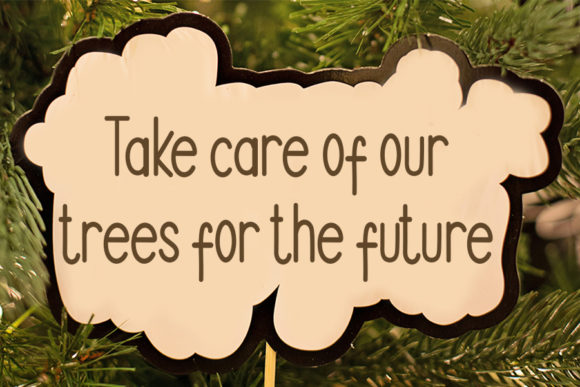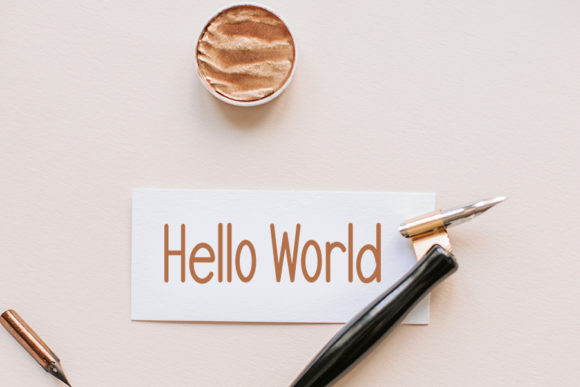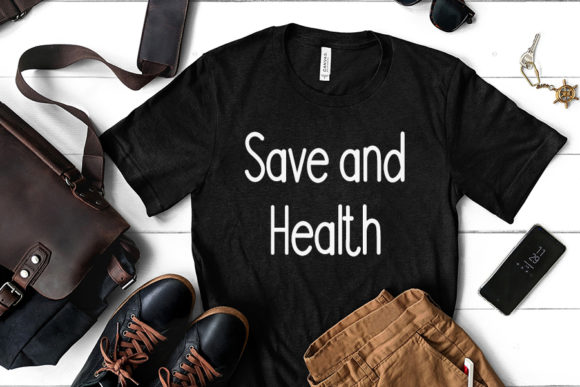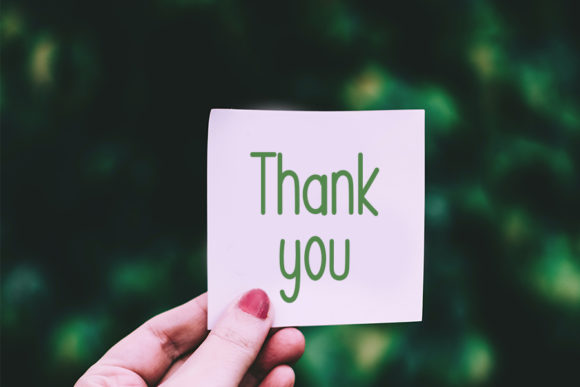
Christmas at Home Font: A Thin Lettered and Neat Sans Serif Font for Your Holiday Projects
As the holiday season approaches, designers and crafters are on the lookout for the perfect font to add a touch of festive flair to their projects. If you’re searching for a font that’s both elegant and versatile, look no further than Christmas at Home Font. This thin lettered and neat sans serif font is perfect for a wide range of applications, from logos and headings to t-shirts, letterhead, signage, labels, news, posters, badges, and more.
What is Christmas at Home Font?
Christmas at Home Font is a beautifully designed sans serif font that’s characterized by its thin letters and neat appearance. The font’s clean and minimalist design makes it perfect for adding a touch of sophistication to your holiday projects. Whether you’re creating a logo, heading, or any other type of design, Christmas at Home Font is sure to impress.
Features of Christmas at Home Font
So, what makes Christmas at Home Font so special? Here are just a few of its key features:
- Thin lettered and neat design: The font’s thin letters and neat appearance make it perfect for creating elegant and sophisticated designs.
- Sans serif: The font’s sans serif design makes it easy to read and perfect for use in a variety of applications.
- Versatile: Christmas at Home Font can be used for a wide range of projects, from logos and headings to t-shirts, letterhead, signage, labels, news, posters, badges, and more.
- Elegant and sophisticated: The font’s clean and minimalist design makes it perfect for adding a touch of elegance and sophistication to your holiday projects.
Uses of Christmas at Home Font
So, what can you use Christmas at Home Font for? The possibilities are endless! Here are just a few ideas to get you started:
- Logos: Use Christmas at Home Font to create a beautiful and elegant logo for your business or brand.
- Headings: Add a touch of sophistication to your headings and titles with Christmas at Home Font.
- T-shirts: Create custom t-shirts with Christmas at Home Font for a unique and stylish look.
- Letterhead: Use Christmas at Home Font to create custom letterhead for your business or personal correspondence.
- Signage: Create eye-catching signage with Christmas at Home Font for your business or event.
- Labels: Use Christmas at Home Font to create custom labels for your products or gifts.
- News: Add a touch of elegance to your news articles or blog posts with Christmas at Home Font.
- Posters: Create stunning posters with Christmas at Home Font for your business or event.
- Badges: Use Christmas at Home Font to create custom badges for your business or event.
Tips for Using Christmas at Home Font
Here are a few tips for using Christmas at Home Font:
- Experiment with different sizes and colors: Christmas at Home Font looks great in a variety of sizes and colors, so don’t be afraid to experiment and find the perfect combination for your project.
- Pair with other fonts: Christmas at Home Font pairs well with other fonts, so try pairing it with a bold font for a striking contrast.
- Use for holiday projects: Christmas at Home Font is perfect for holiday projects, but it can also be used for other applications, such as logos, headings, and more.
Christmas at Home Font is a beautiful and versatile font that’s perfect for adding a touch of elegance and sophistication to your holiday projects. With its thin letters and neat appearance, this font is sure to impress. Whether you’re a designer or crafter, Christmas at Home Font is a great addition to your font collection. So why wait? Download Christmas at Home Font today and start creating stunning holiday projects!